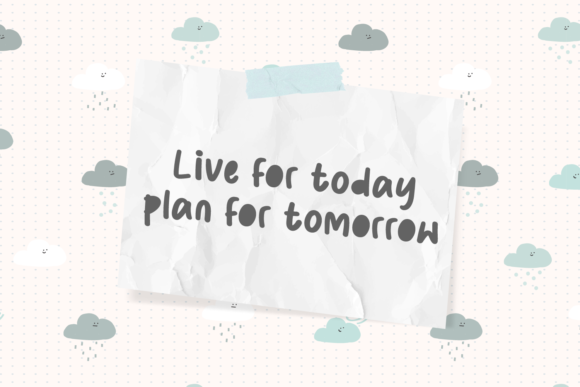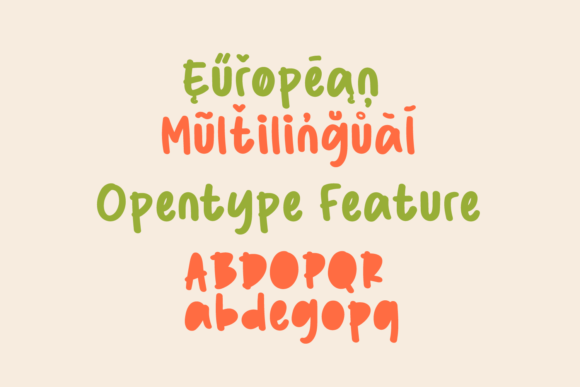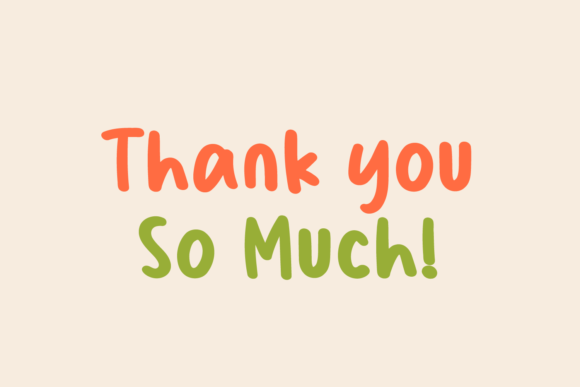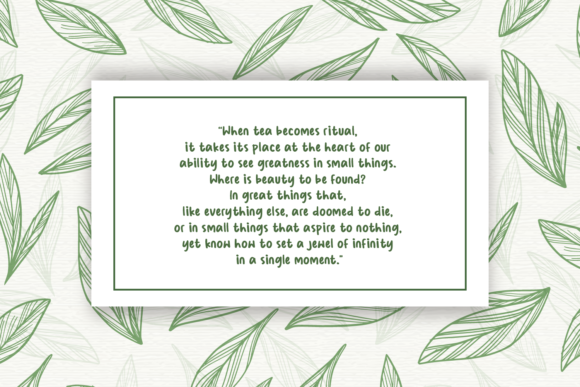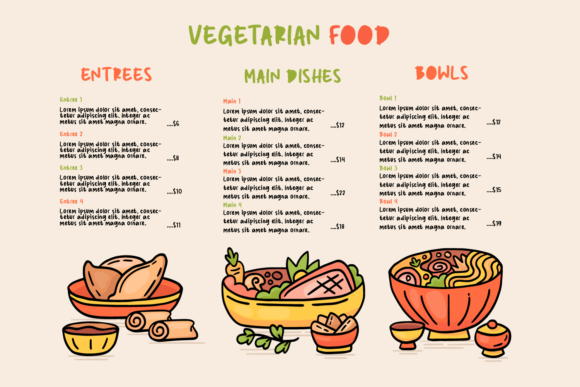
Ballpoint Marker Font
About Ballpoint Marker Font
Ballpoint Marker is a simple, quirky and adaptable handwritten font. Its informal style and casual vibe will make this font a go-to choice for each of the creations that require a relaxed touch.